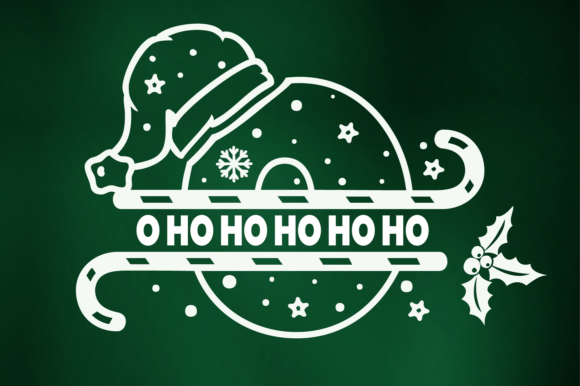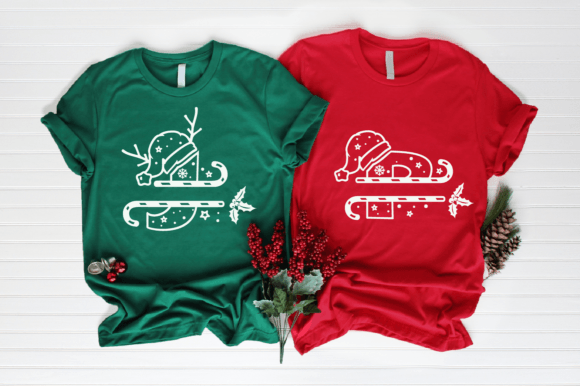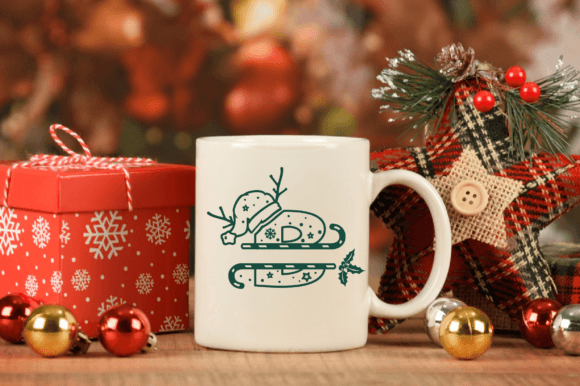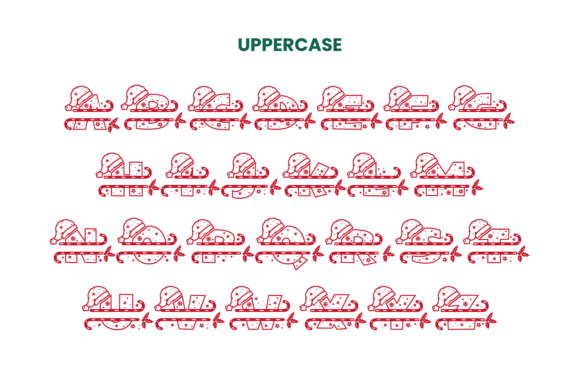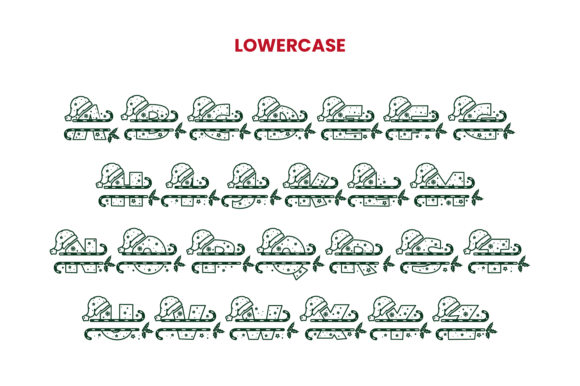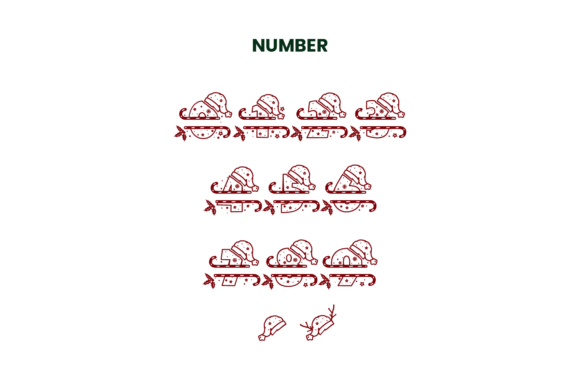
Introduction to My X-mas Font
As the holiday season approaches, many designers find themselves in a creative frenzy, scrambling to find the perfect font to capture the festive spirit. For some, it’s the sound of jingling bells, while for others, it’s the sight of twinkling lights. For me, it’s the feeling of unwrapping a beautifully designed Christmas card, complete with a charming font that sets the tone for the season.
That’s where My X-mas Font comes in – a delightful, high-quality typeface designed to add a touch of holiday cheer to your projects. Whether you’re a seasoned designer or a hobbyist, this font is a valuable resource that can elevate your creative project from ordinary to extraordinary.
Key Features of My X-mas Font
- High-quality design resource for creative projects: My X-mas Font offers a unique and festive design element for your projects, ensuring a professional finish.
- Transparent background: This feature allows for seamless integration into any design, making it easy to use in a variety of creative contexts.
- Unique holiday design: My X-mas Font features a unique and festive design element, perfect for adding a touch of holiday cheer to your creative projects.
Honest Review: My X-mas Font
As a designer, I’m always on the lookout for high-quality design resources to elevate my creative projects. I recently stumbled upon My X-mas Font, and I’m excited to share my honest review with you.
- ✨ The transparent background allows for seamless integration into various design contexts.
- ✨ The font itself is well-designed, with a clear and legible aesthetic.
- ⚠️ The font is limited to a single style, which may not be suitable for all design projects.
- ⚠️ The font is only available in a single weight, which may not provide enough flexibility for some designers.
Overall, I’m impressed with My X-mas Font. While it may not be the most comprehensive font collection, it’s a great resource for designers looking to add a touch of holiday cheer to their projects. The free download and transparent background make it a convenient addition to any design toolkit.
My X-mas Font is perfect for creating festive holiday cards, invitations, and social media posts. It’s also great for adding a touch of whimsy to your branding and marketing materials.